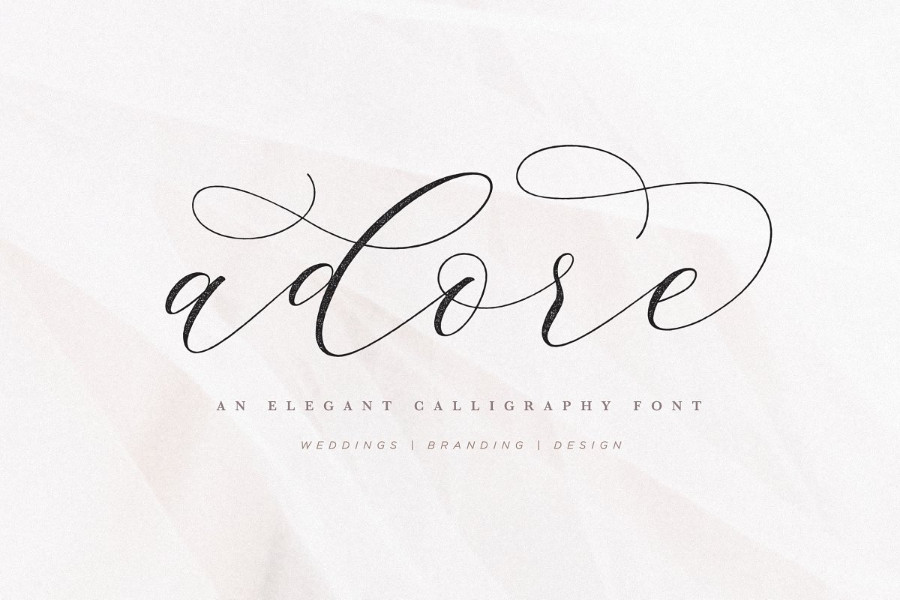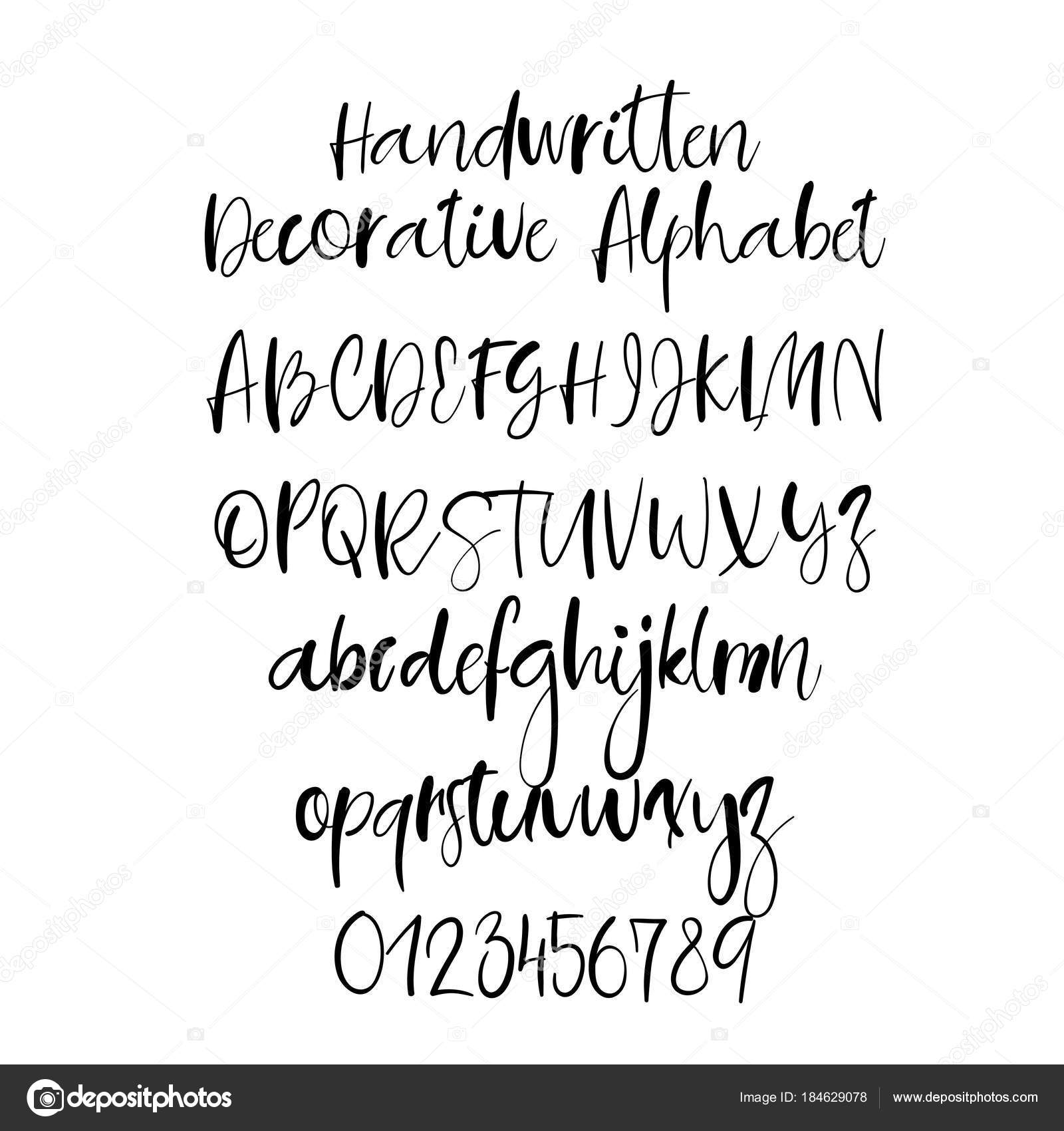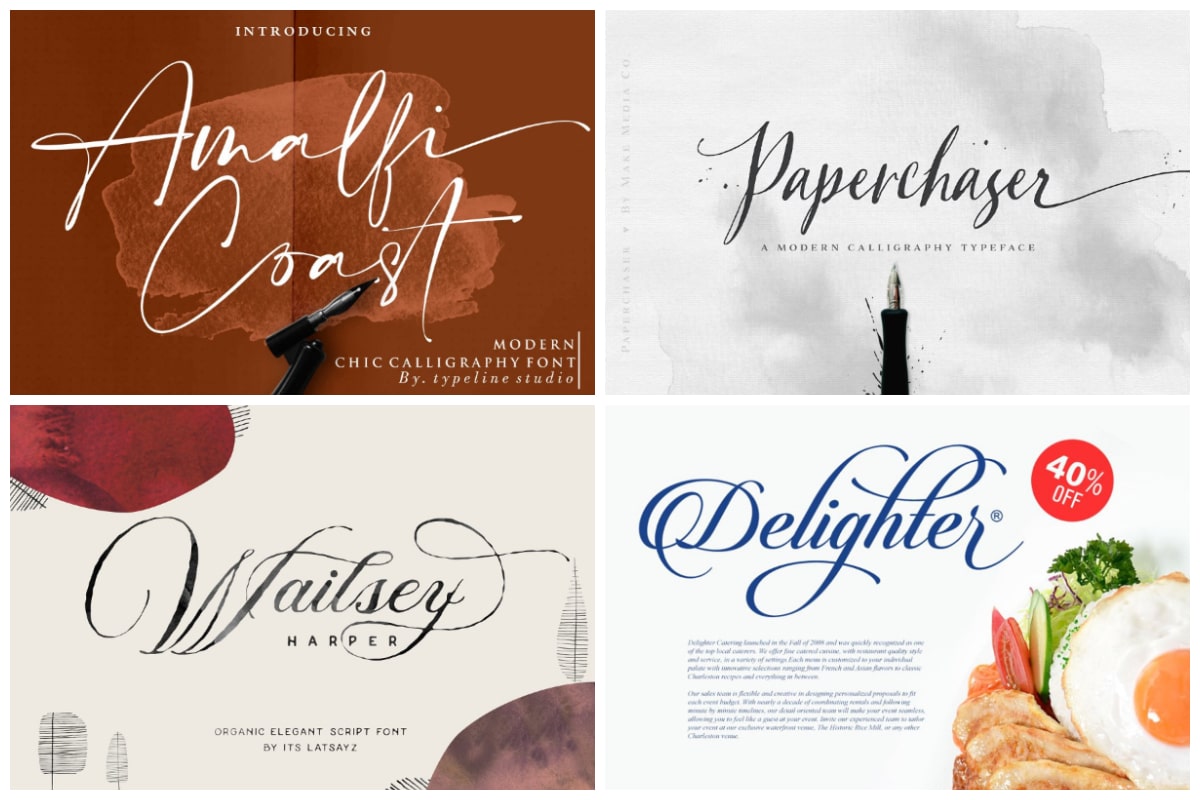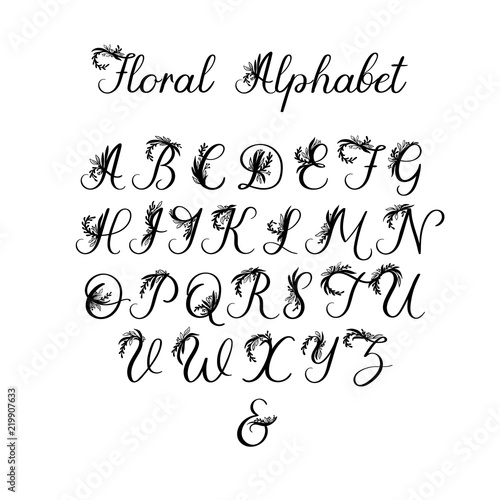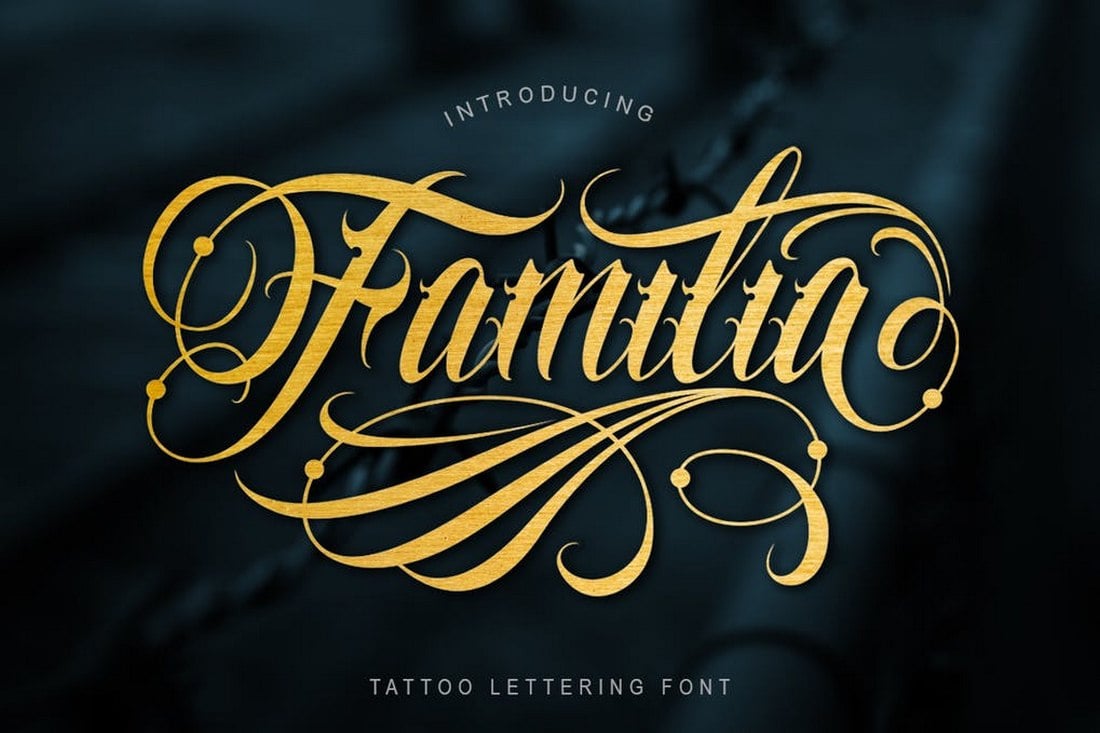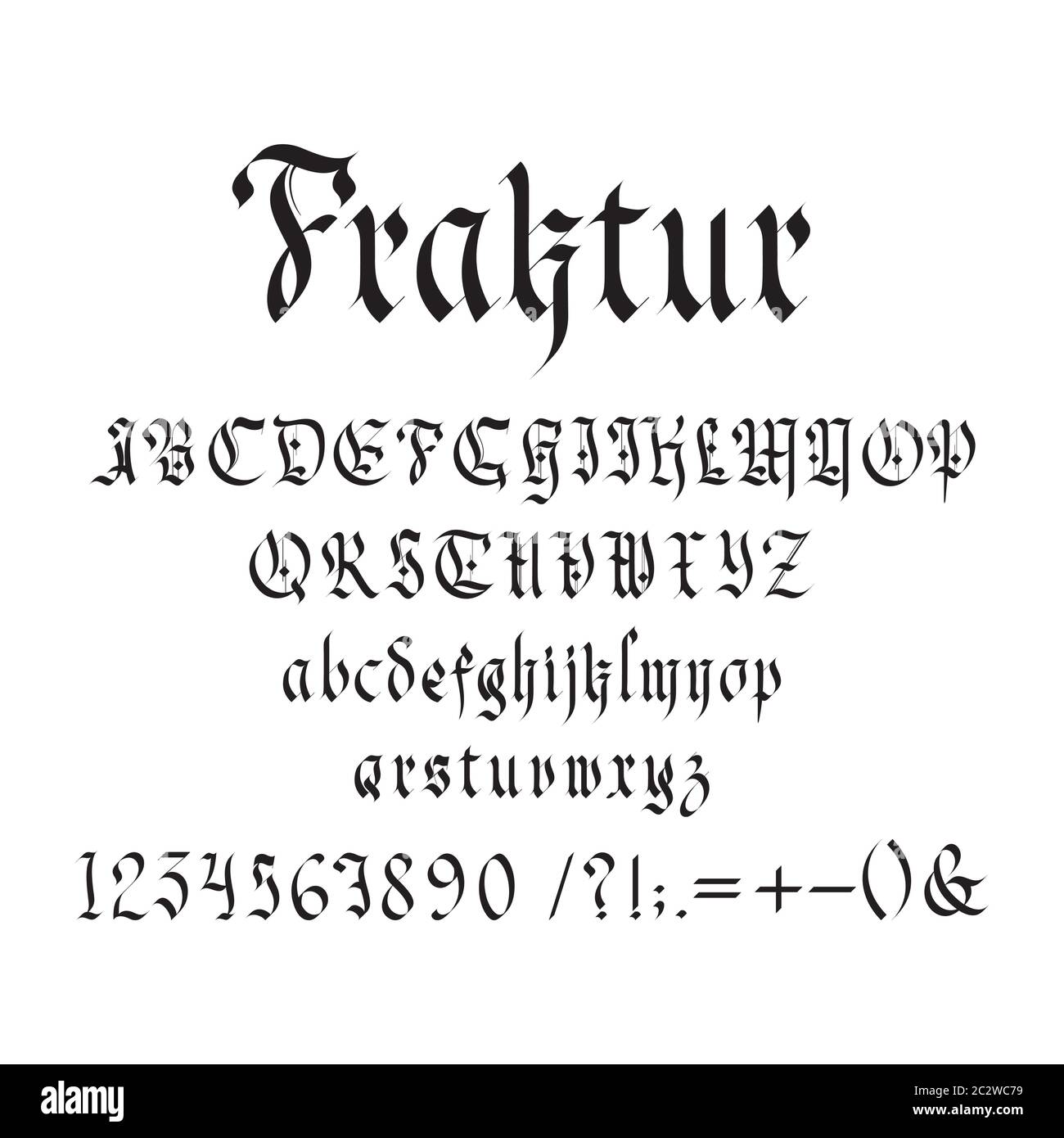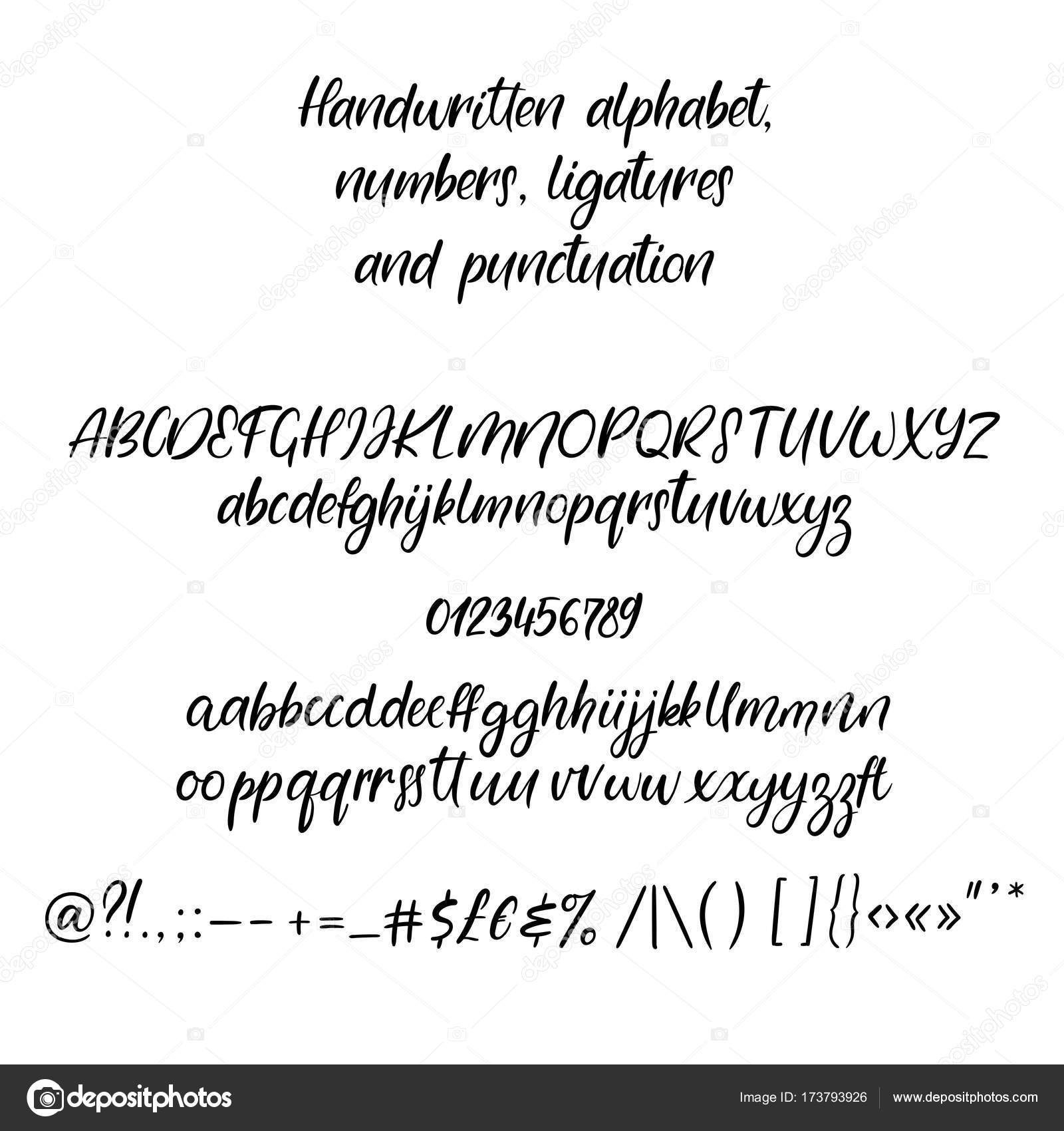
Decorative calligraphy number fonts. Get creative with unique product mixes and create amazing greeting cards weddings logos crafts. Enter custom sample text to change the font previews below. They are mostly used to embellish calligraphy fonts but they can be used on other styles as well.
Calligraphy fonts are extremely helpful in mass production. With ornamental vintage style and lot of swashes you can create realistic headers or branding designs. Did you scroll all this way to get facts about fonts calligraphy.
Lily of the Valley_Personal_Use by dcoxy - Greg Medina Category. Calligraphy is an ancient writing technique using flat edged pens to create artistic lettering using thick and thin lines depending on the direction of the stroke. Decorative Font Bundle is here with an incredible selection of fonts crafts and images for any project.
It is the design and execution of lettering with a broad tip instrument brush or other writing instruments. You receive all 10 fonts. Black Savior - decorative calligraphy Display Font 258142 Blackletter Font Bundles.
As this page shows calligraphy looks expressive and beautiful it is widely used in wedding invitations and event invitations and calligraphy also has a large number of enthusiasts. Decorative script font that is inspired by vintage letters or cards. LHF Encore lends itself to designs requiring a formal or professional appearance.
With expertly balanced letters Encore is perfect for creating quick logos. It works beautifully for any branding and advertising. Lovers of beautiful calligraphy and type will especially appreciate this elegant font family.
It usually involves a nibbed pen or brush. The most popular color. Typographic flourishes are ornamental lines that add exquisite detail to the ends of the letter-forms.
Calligraphy Generator calligraphy is a visual art related to writing. The height of calligraphy was reached in the middle age where monks developed the narrow writing style called gothic allowing more words to fit on a single line as paper was expensive at the time. These letters may be roman numerals or old-style figures with varying heights.
The writing is readable but is usually extravagant and embellished with flourishes. Youll find a lot of alternate characters ligatures and multilanguage characters in this elegant decorative script font. These decorative fonts are typically styled with ornaments or patterns.
If you need to make multiple copies of posters flyers or invites using fonts can be an efficient strategy. Calligraphy is an artistic writing style where the pressure is varied to create thick and thin lines all in a single stroke. Calligraphy fonts are consistent in their quality and style.